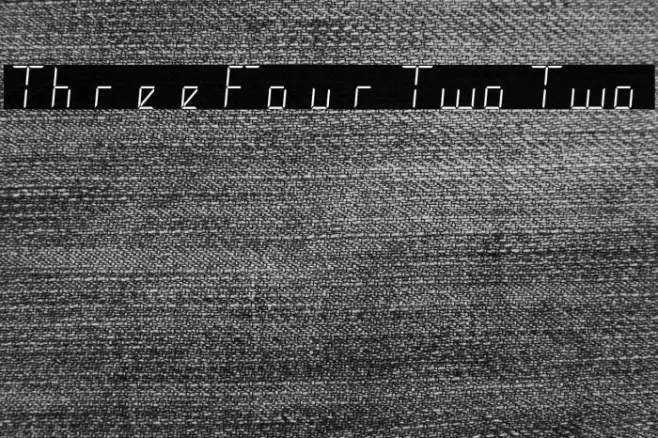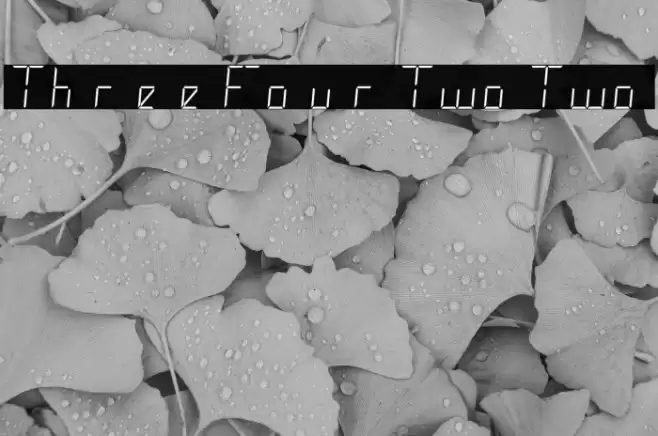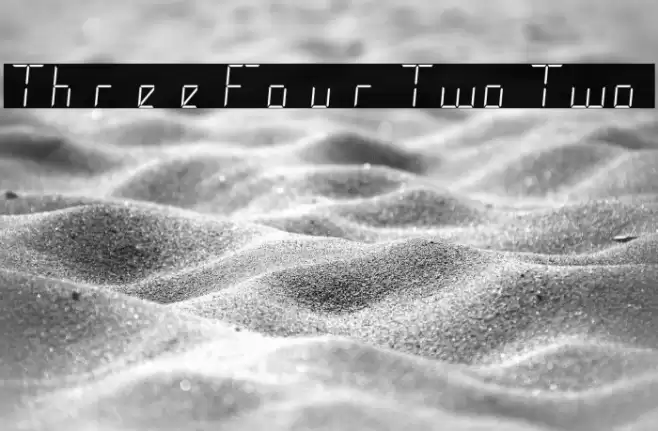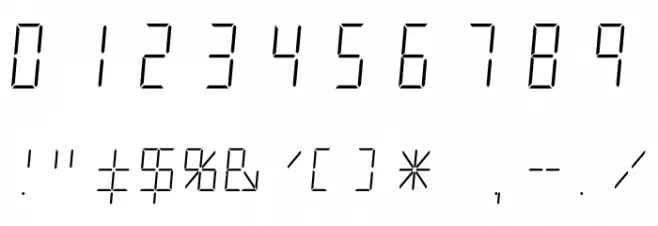
ThreeFourTwoTwo Font
ThreeFourTwoTwo Description
This font features a distinct, geometric style with a digital, segmented appearance reminiscent of LED displays. Each character is constructed with clean, straight lines and sharp angles, giving it a modern and technical feel. The uppercase letters are uniform in height, while the lowercase letters maintain a similar structure but with slight variations in size and form. Numbers and special characters follow the same segmented pattern, ensuring consistency across the font. The overall design is minimalistic, making it suitable for digital displays or futuristic themes.
A geometric, segmented font with a digital, modern aesthetic from Uncategorized fonts.
- Proposed Projects: Ideal for digital displays, tech-themed designs, futuristic branding, and electronic device interfaces.
- Use Case: Headlines, Logos, Digital displays